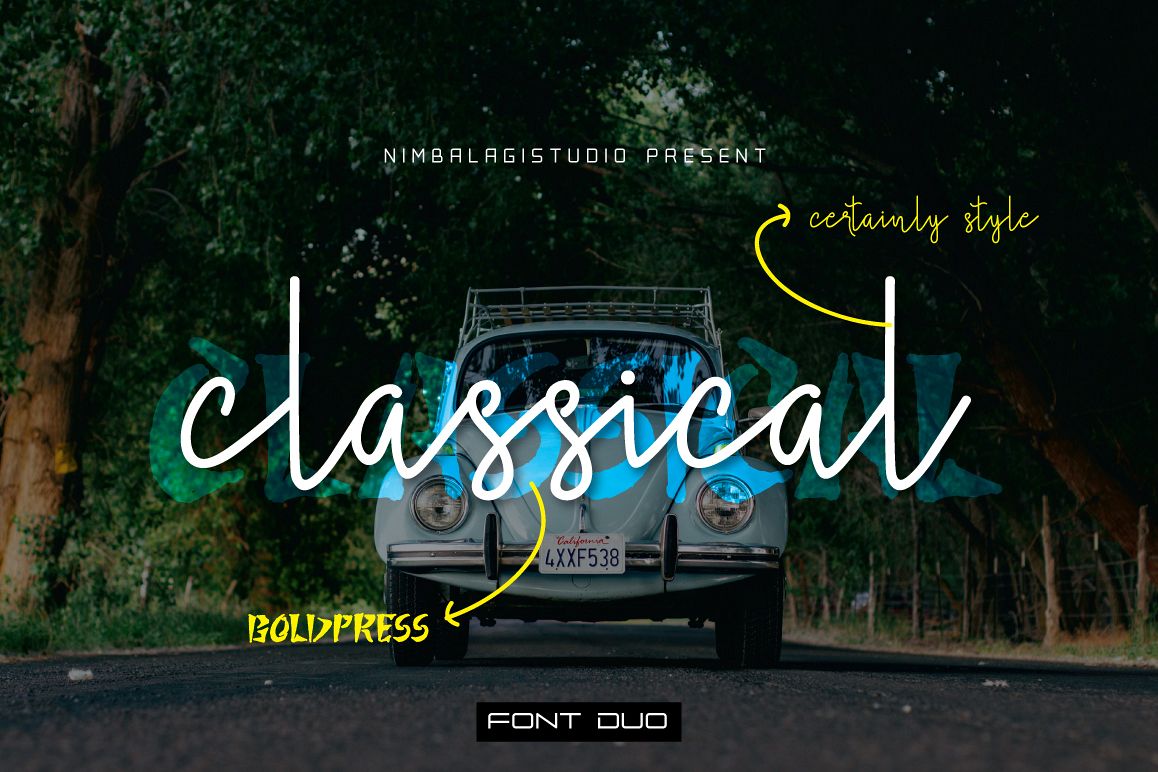
Classical - Font Duo
Certainly Style
Boldpress Typeface
Classical - Font duo is textured brush font, contemporary approach to design, handmade natural with an less regular baseline. Suitable for use in title design. Such as apparel, invitations, books tittle, stationery design, quotes, branding, logos, greeting card, t-shirt, packaging design, poster and more.
Certainly Style Typeface
Boldpress Typeface